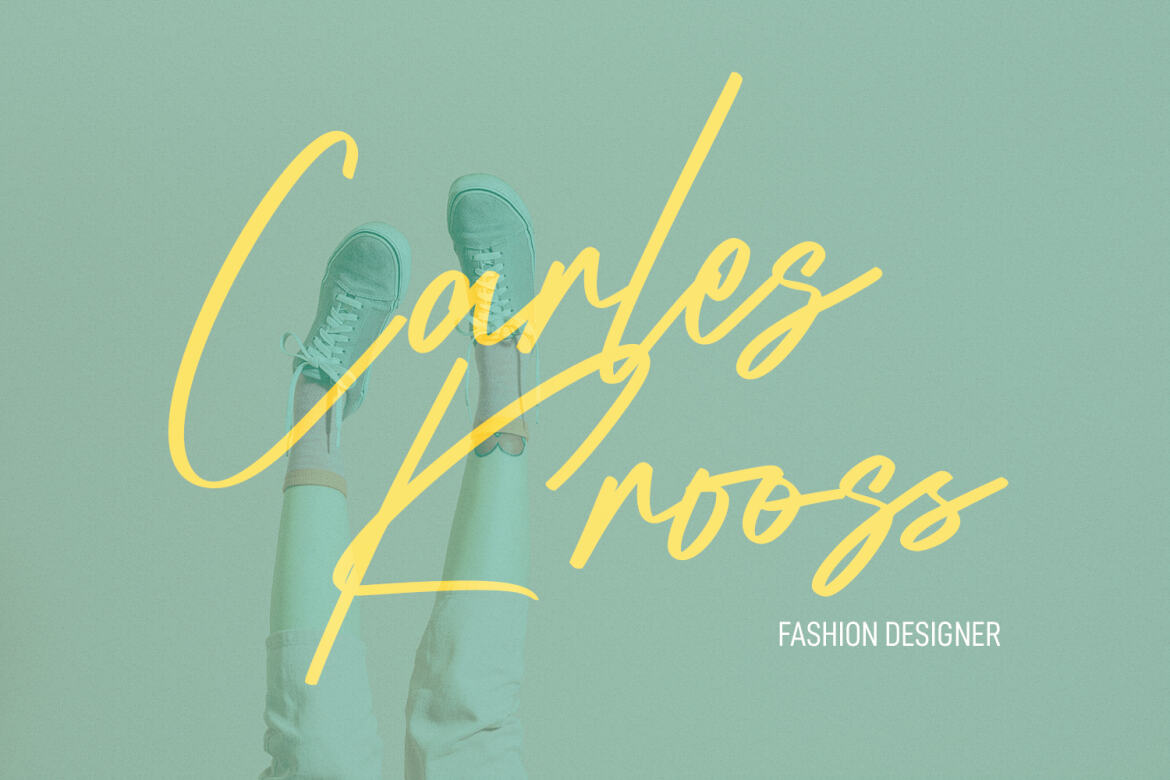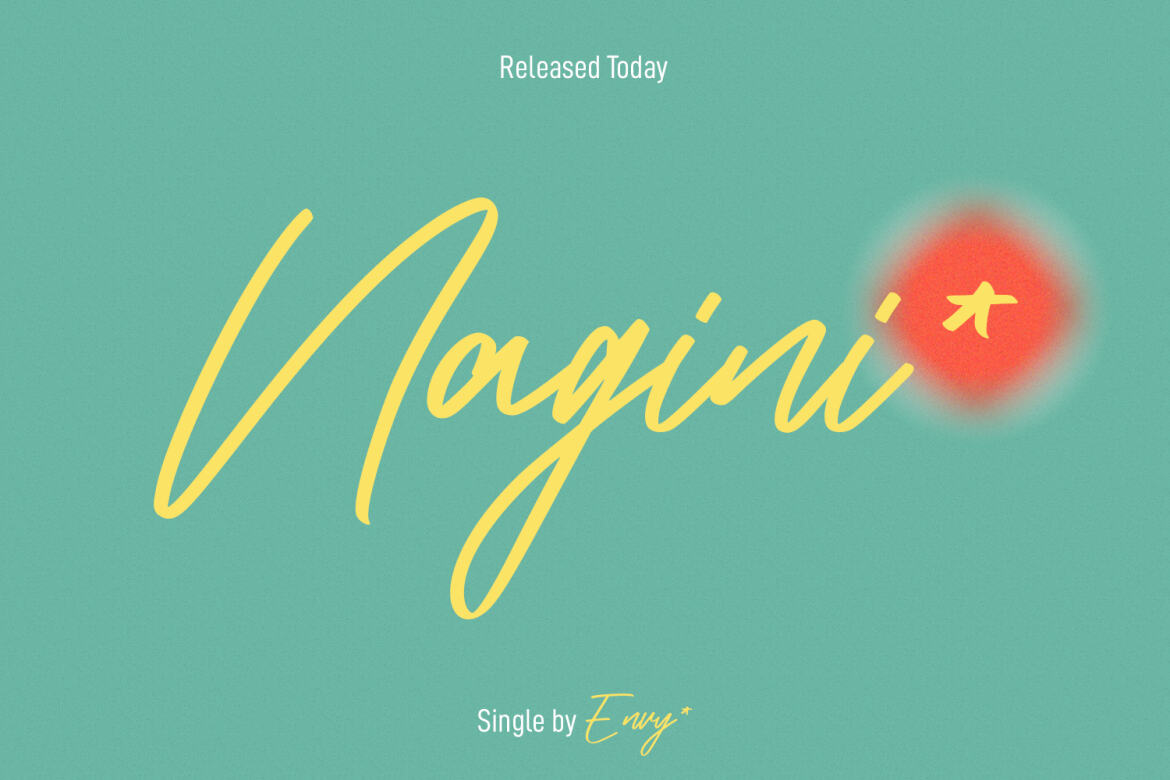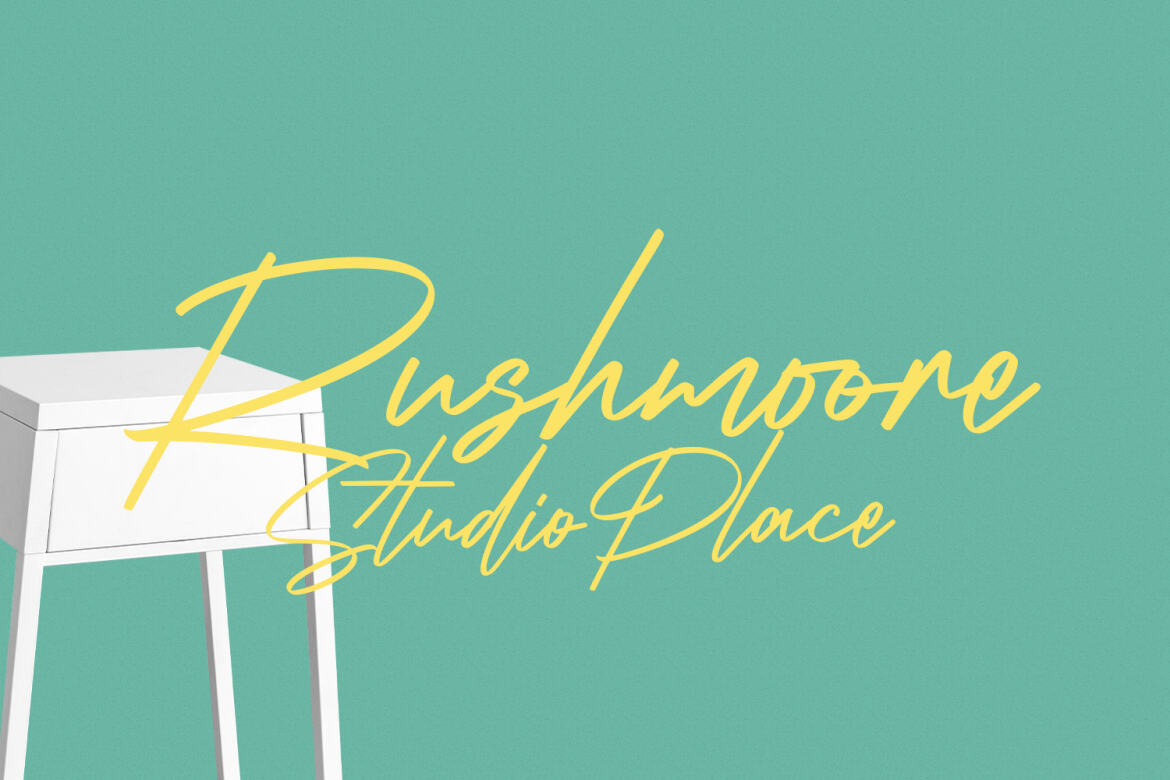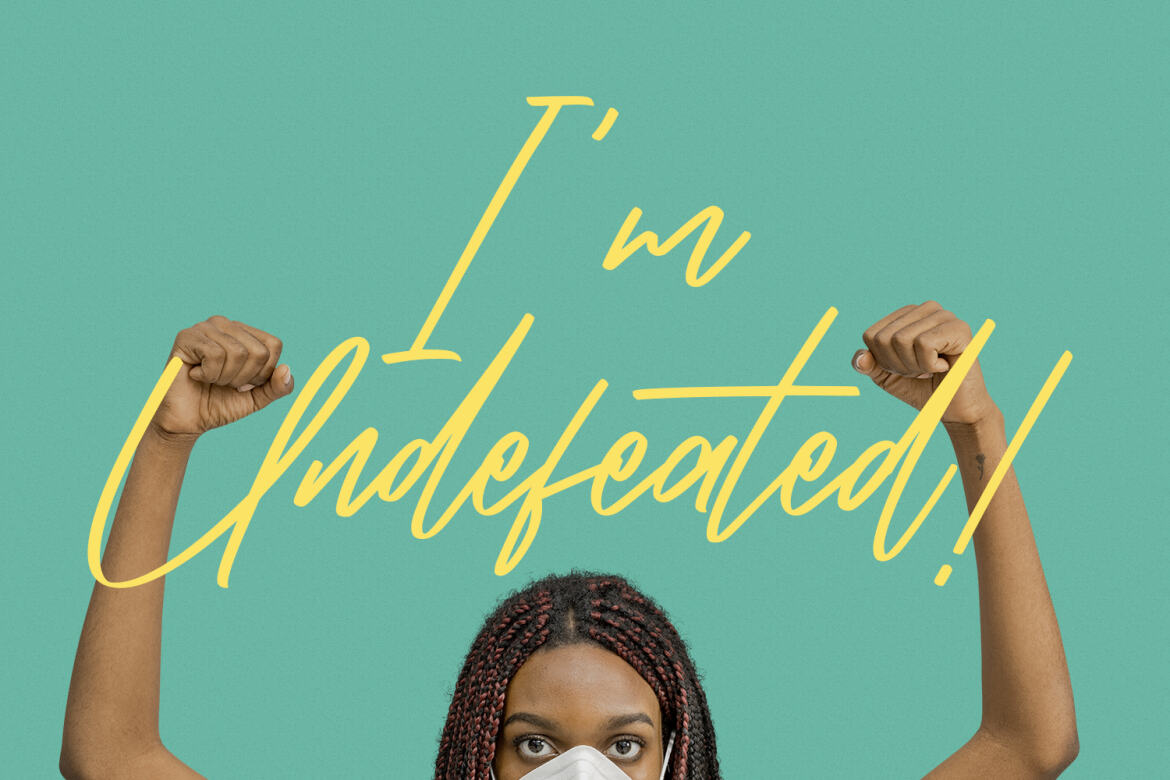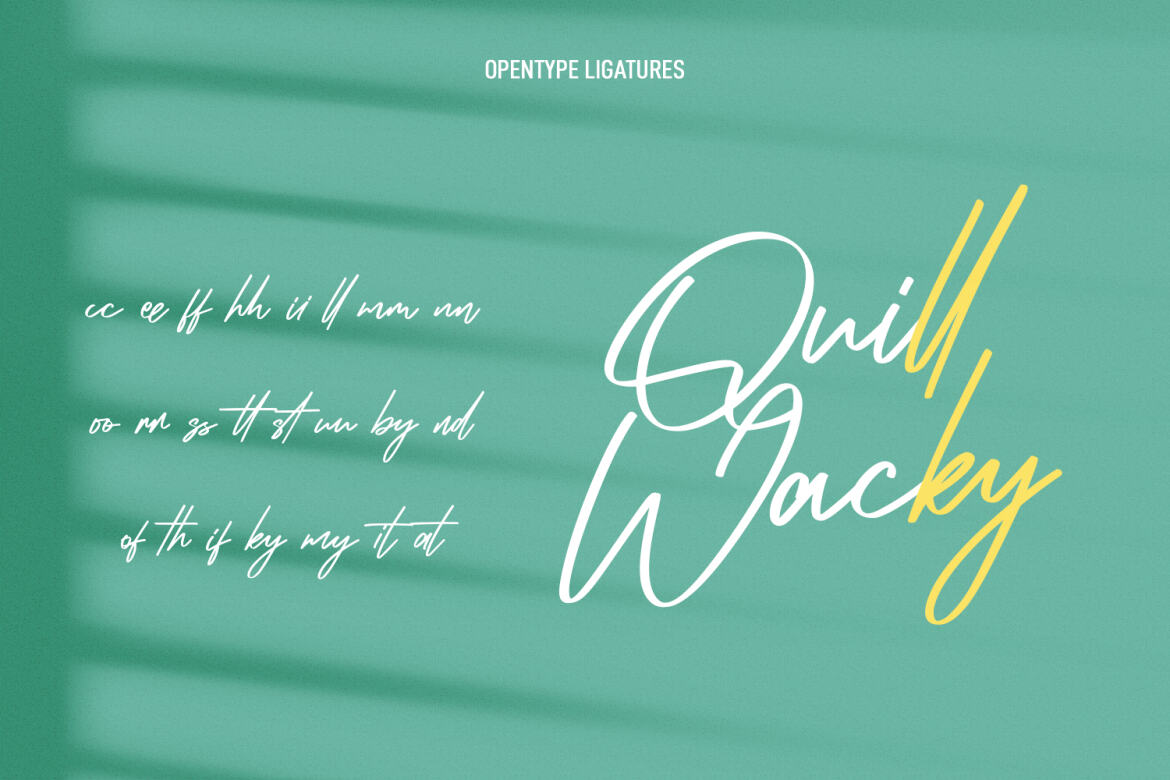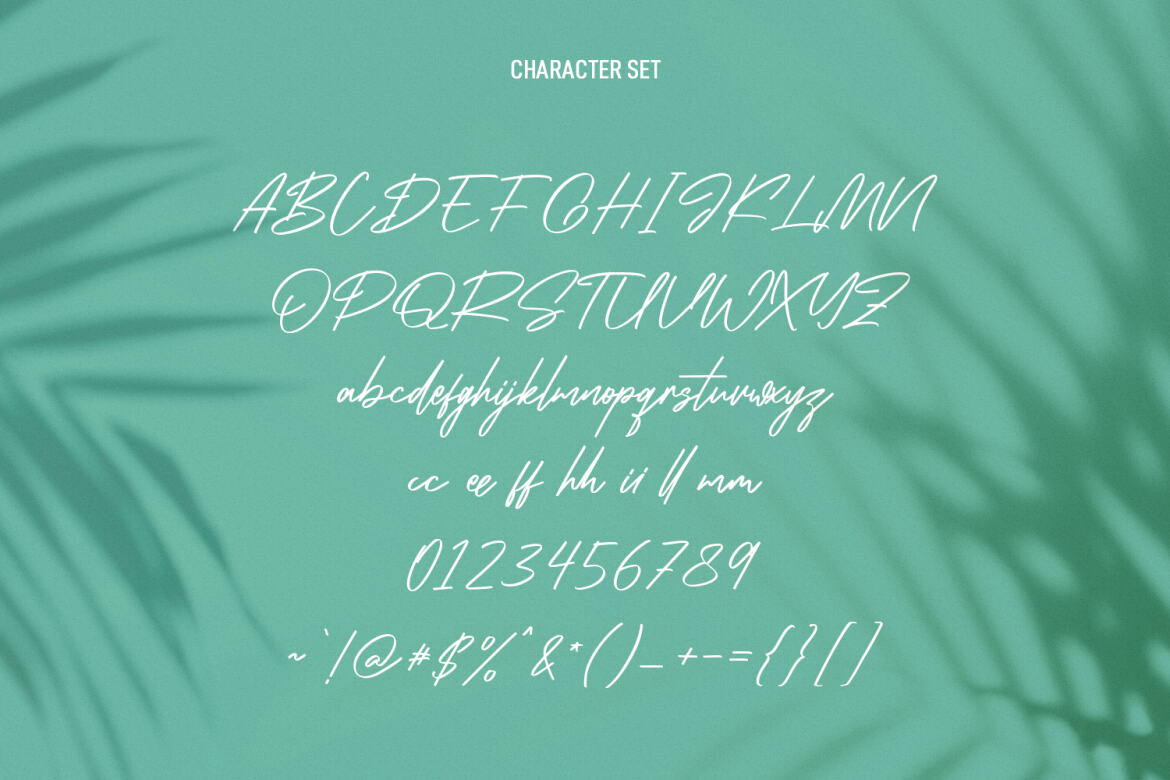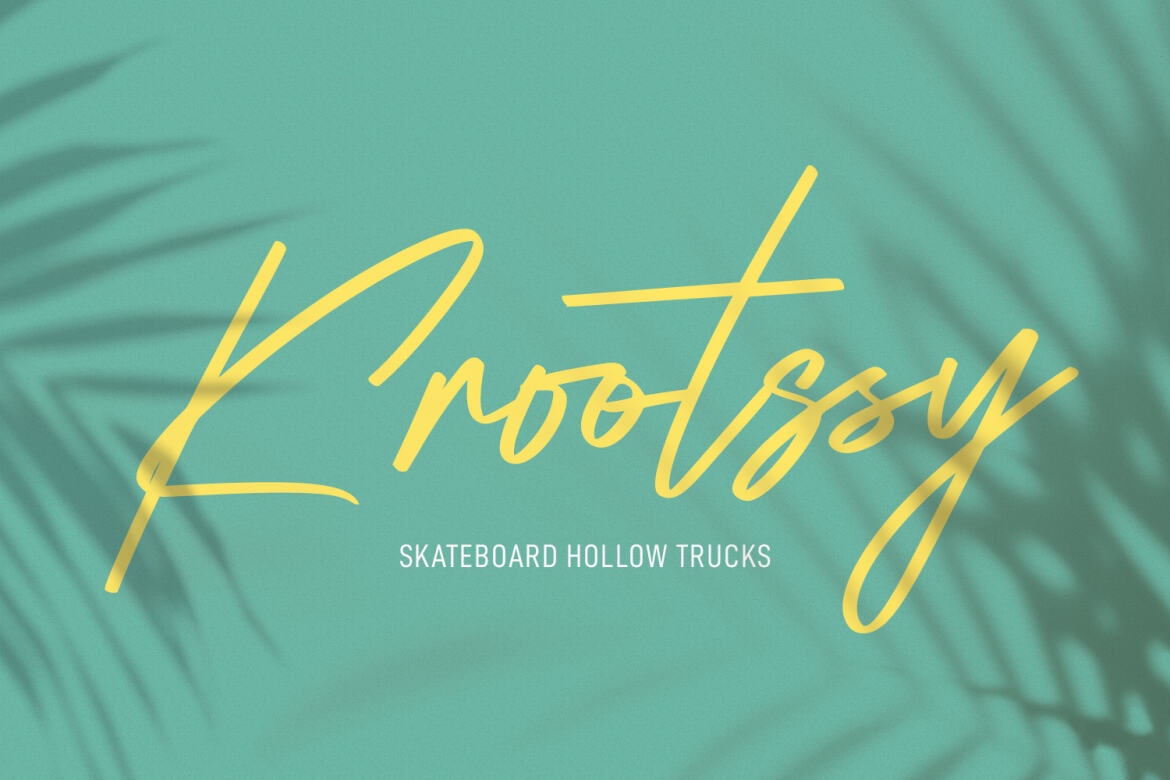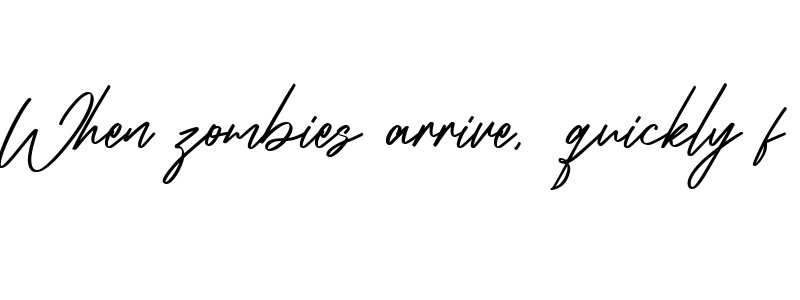
Infamous Rush FREE Signature Script Font
Infamous Rush
Infamous Rush is a fancy signature font. With sharp felt-tip stroke, slanted and fun character with a bit of ligatures. To give you an extra creative work. Infamous Rush font support multilingual more than 100+ language. This font is good for logo design, Social media, Movie Titles, Books Titles, a short text even a long text letter and good for your secondary text font with sans or serif. Make a stunning work with Infamous Rush font.